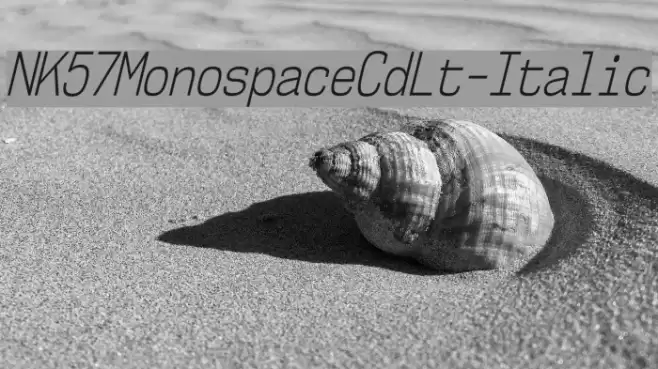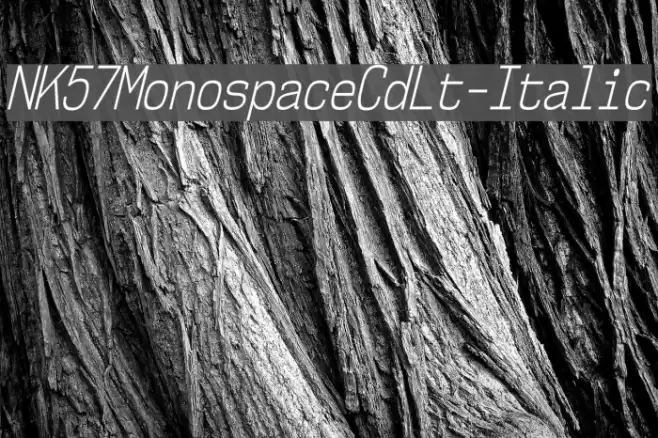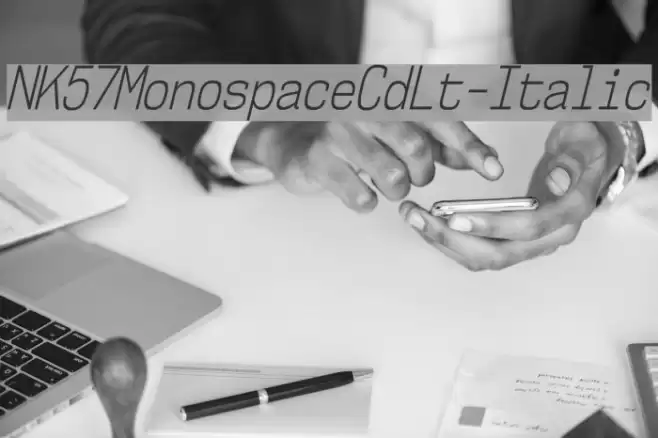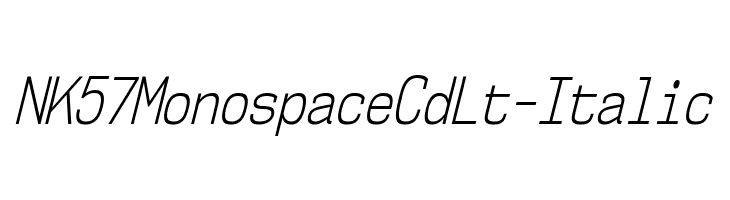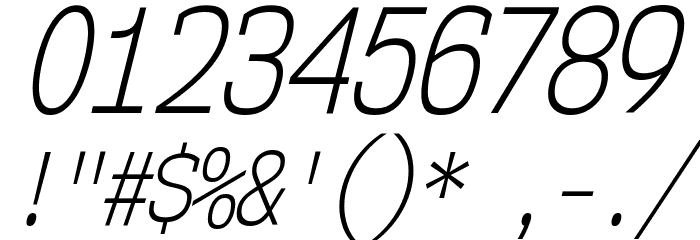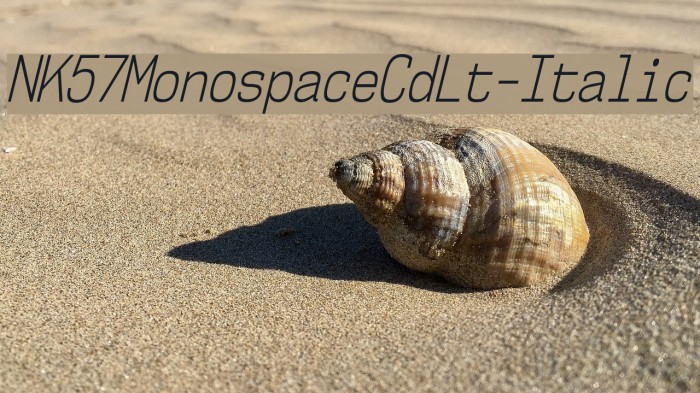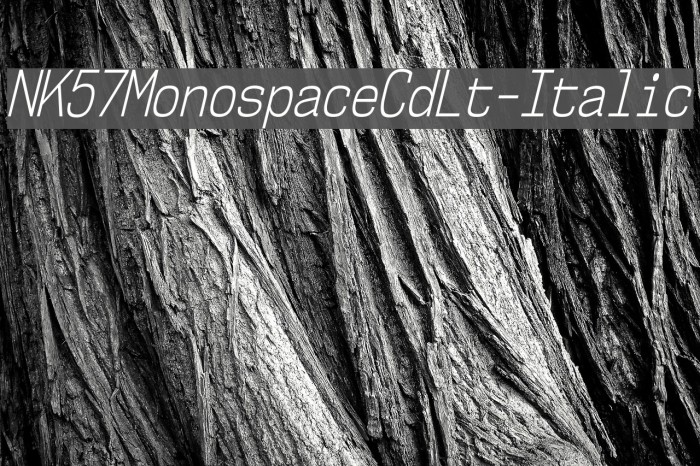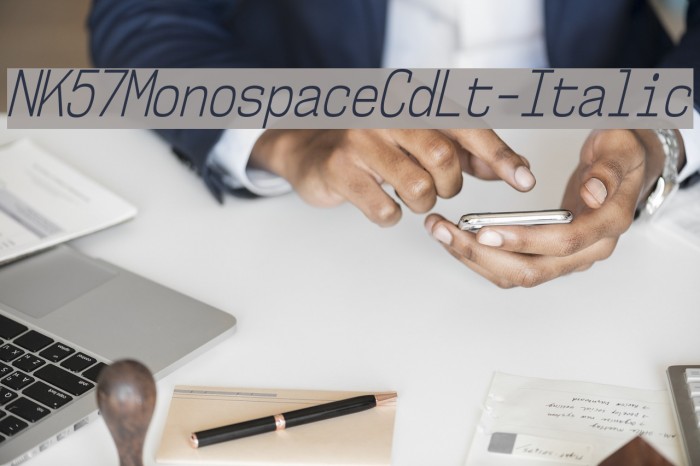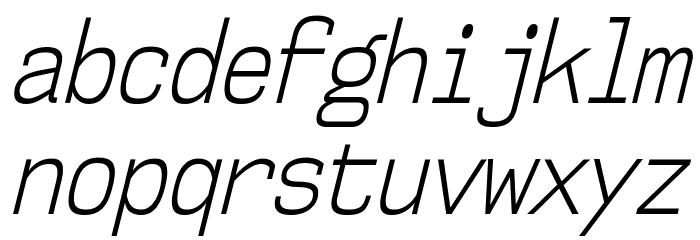
NK57MonospaceCdLt-Italic Font
NK57MonospaceCdLt-Italic Description
This font features a sleek and modern design with a monospaced structure, ensuring each character occupies the same horizontal space. The italic style adds a dynamic and forward-leaning appearance, enhancing its contemporary feel. The characters are slightly condensed, contributing to a clean and efficient look. The strokes are consistent in thickness, providing a medium contrast that balances readability with style. The font includes a full set of uppercase and lowercase letters, numerals, and a variety of special characters, making it versatile for various applications.
A modern, monospaced italic font with medium contrast and condensed spacing from Basic fonts.
- Proposed Projects: Ideal for coding environments, technical documents, modern branding, and digital interfaces.
- Weight: Light
- Character Spacing: Tight
- Use Case: Coding, Technical documents, Digital interfaces
- Is Fixed Pitch: Yes